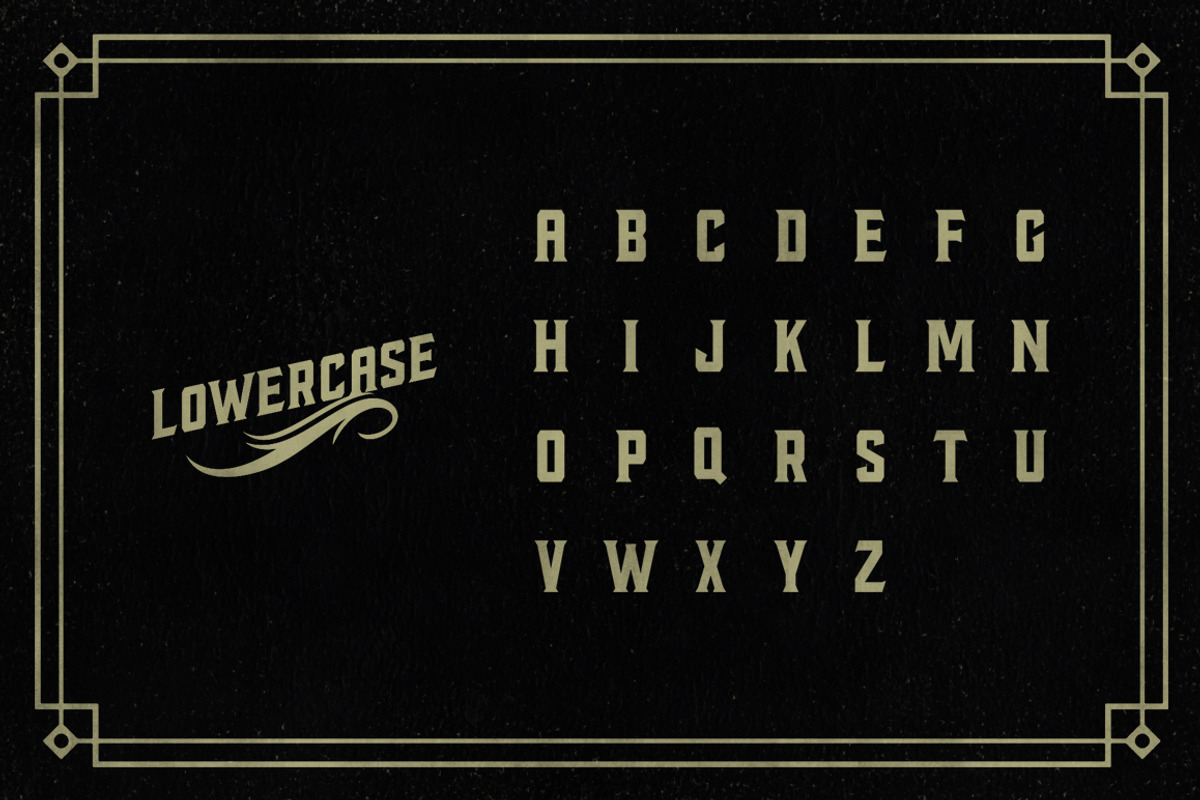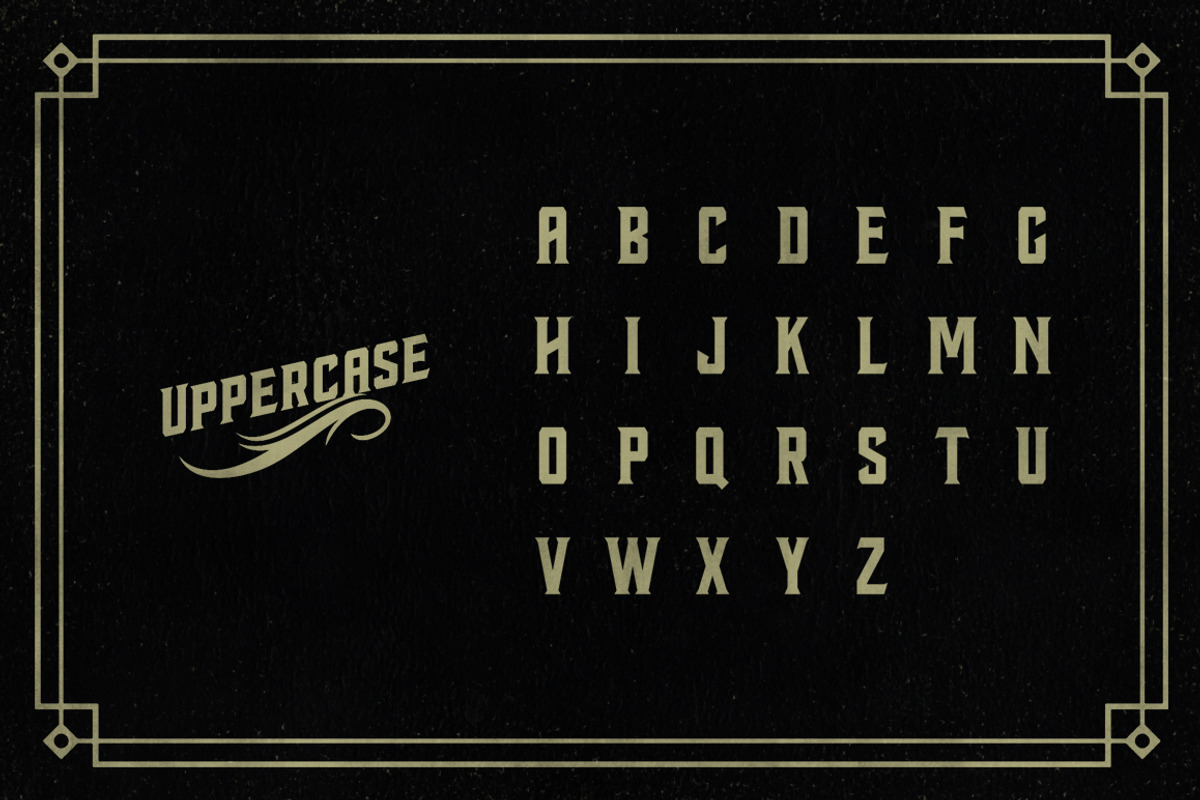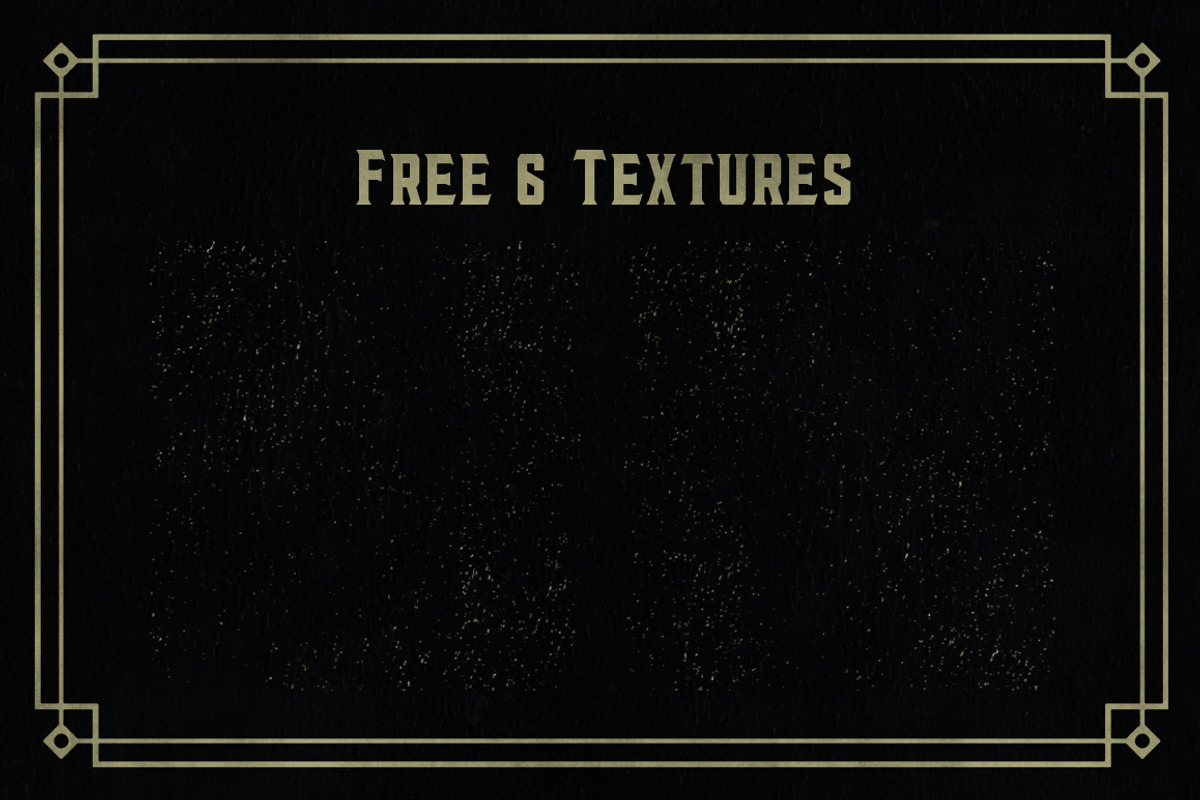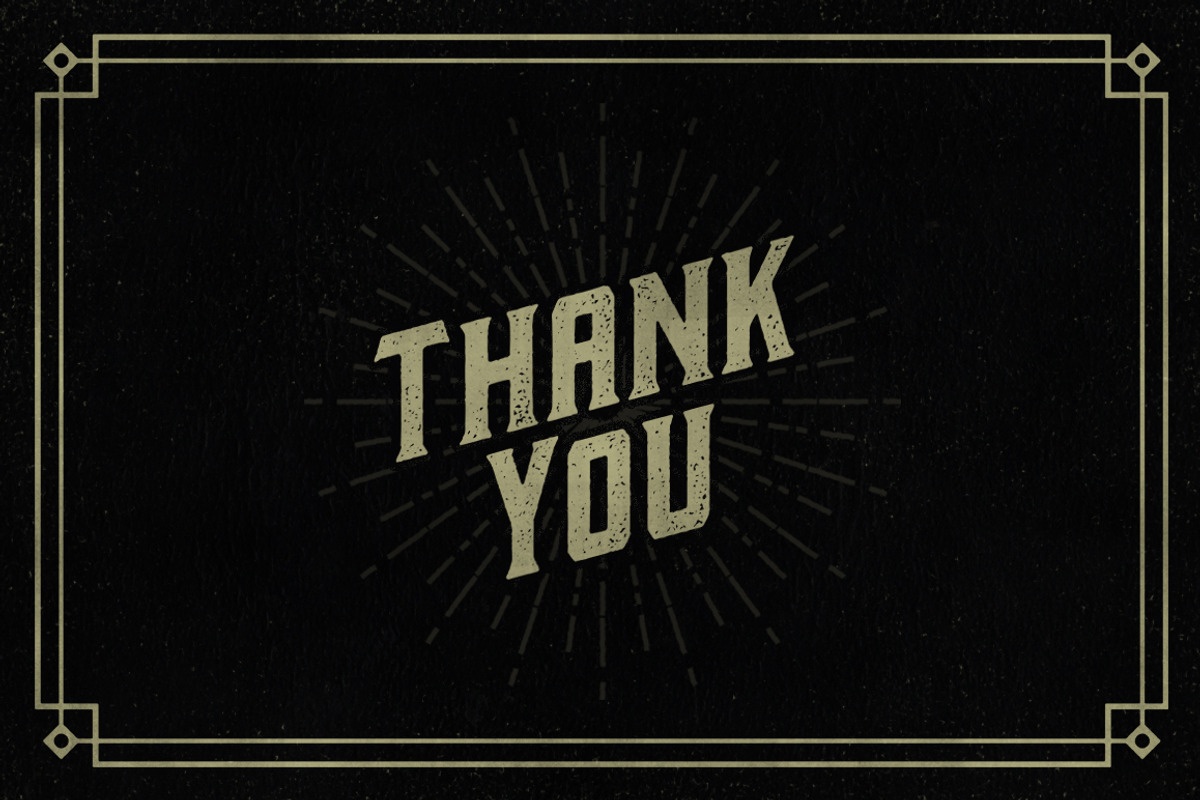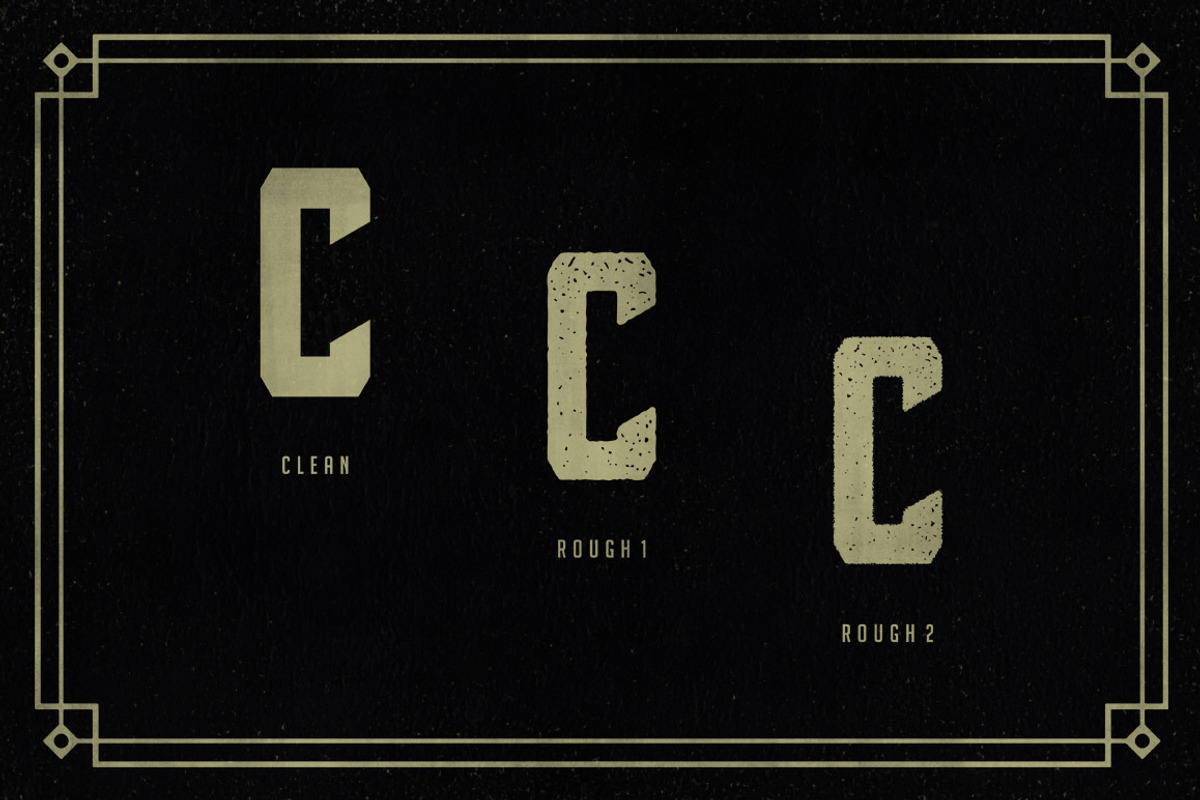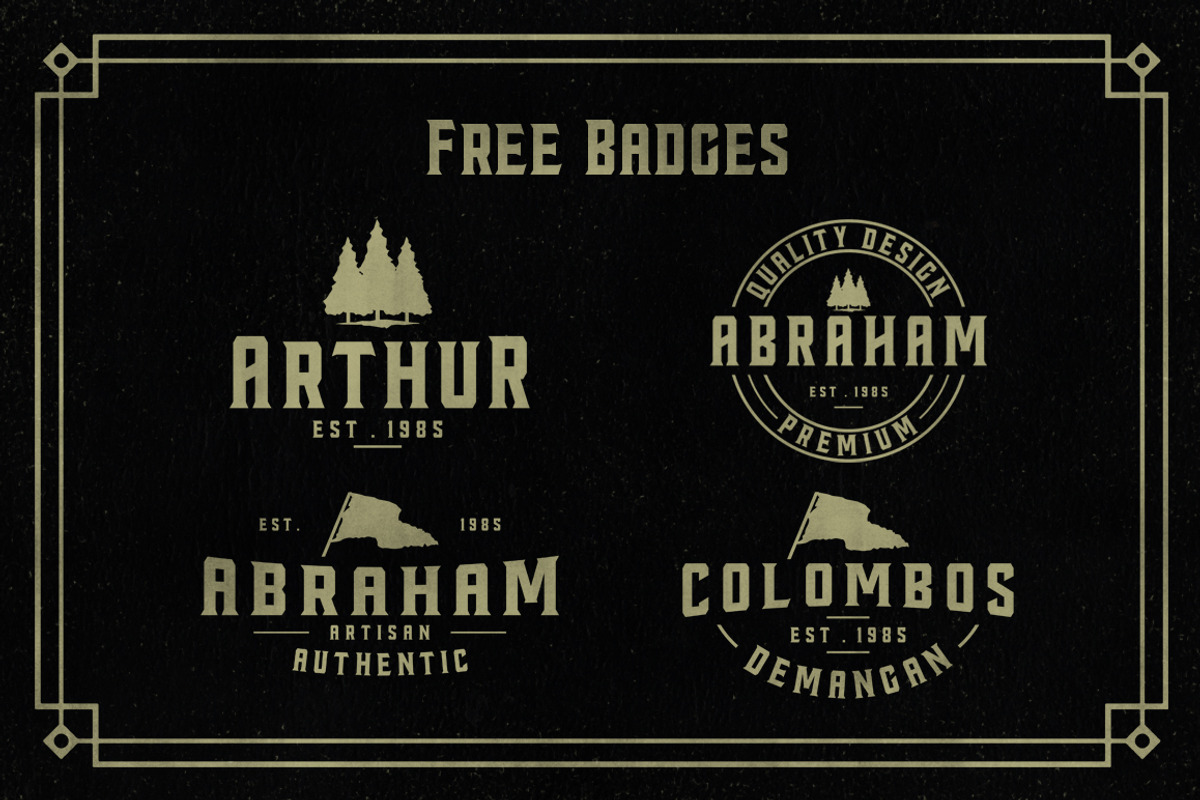
Colombos Typeface
Colombos Typeface by Tastype is a font selected for branding, posters, packaging, typography.
Why Colombos Typeface is worth a look
Colombos Typeface by Tastype fits naturally into Branding, posters, packaging, typography.